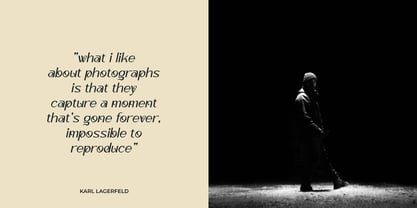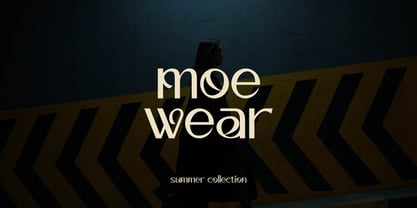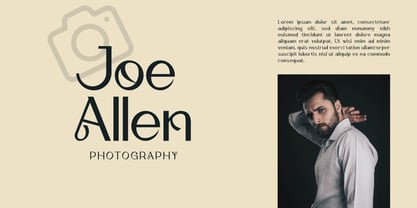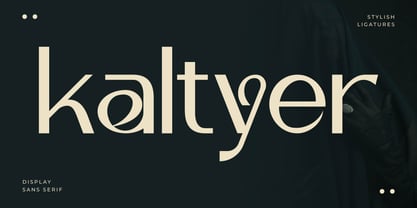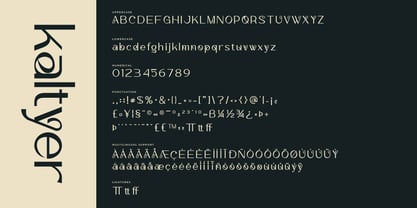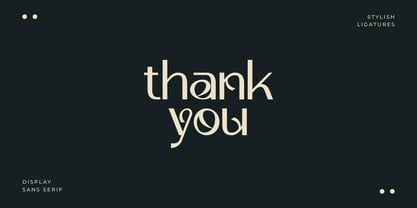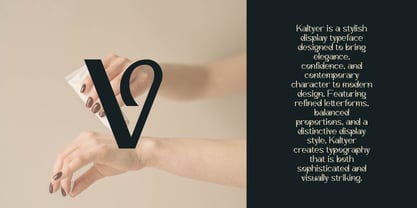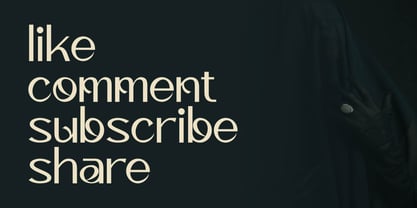
Kaltyer
by Artiveko
The Kaltyer Font Family was designed by Iwan Alwan and published by Artiveko. Kaltyer contains 2 styles and family package options. More about this family
Kaltyer is a stylish display typeface that infuses elegance, confidence, and contemporary character into modern design. With its refined letterforms and balanced proportions, Kaltyer offers a distinctive display style that results in typography that is both sophisticated and visually striking. This typeface is perfect for a variety of applications, including logos, branding, fashion labels, lifestyle brands, packaging, editorial layouts, social media campaigns, and premium marketing materials. Kaltyer ensures an exceptional presence while maintaining clean readability, making it an ideal choice for designers aiming to craft timeless yet trend-forward visual identities. Whether you're building a luxury brand, launching a creative campaign, or designing eye-catching headlines, Kaltyer adds style, personality, and premium appeal to every project. Kaltyer is not just a typeface; it serves as a stylish signature for brands that prioritize elegance and modern design.
Designers: Iwan Alwan
Foundry: Artiveko